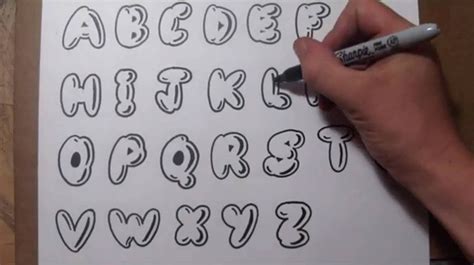
Bubble Font Drawing: Create Fun & Easy Designs
Readers, have you ever wanted to add a touch of whimsy and playfulness to your designs? Bubble font, with its rounded, bouncy letters, is a great way to achieve that. But where do you start? What are the best techniques for drawing bubble font?
Don't worry, you don't need to be a professional artist to create stunning bubble fonts. With a little practice, you can easily master this fun and versatile style. I've been experimenting with bubble font for years, and I've gathered some amazing tips and tricks to help you create your own eye-catching designs.
What is Bubble Font?
Bubble font, also known as "balloon font," is a playful, rounded font style that resembles speech bubbles or balloons. This whimsical style is perfect for adding a touch of fun and personality to your designs. It's often used for creating eye-catching titles, headings, and even entire pieces of text.
Why Use Bubble Font?
Bubble font adds a unique and engaging element to your designs. It's instantly recognizable, making your work stand out. It's also a great way to express personality and create a fun and friendly atmosphere.
Versatility of Bubble Font
Bubble font can be used for a variety of purposes, from creating fun and playful designs to adding a touch of whimsy to more serious projects.
Here are a few examples of how you can use bubble font:
- Greeting cards and invitations: Add a touch of personality to your greeting cards and invitations with bubble font.
- Posters and flyers: Create eye-catching posters and flyers that will grab attention.
- Social media graphics: Use bubble font to create fun and engaging social media graphics.
- Website designs: Add a touch of whimsy to your website designs with bubble font.
- Logos and branding: Create unique and memorable logos and branding elements with bubble font.
The Popularity of Bubble Font
Bubble font has gained immense popularity in recent years, thanks to its versatility and ability to add a touch of fun to any design. It's often used in social media graphics, websites, and even in children's books and illustrations.
Its popularity stems from its ability to convey a sense of playfulness and joy. It's a great way to add a personal touch to your designs and make them more engaging for your audience.
How to Draw Bubble Font
Learning how to draw bubble font is easier than you might think. It's all about using basic shapes and adding your own unique flair. Here's a step-by-step guide to get you started:
Step 1: Choose Your Tools
You'll need a few basic tools to get started. Here are a few suggestions:
- Paper: Use any type of paper that you find comfortable to draw on. Thick paper or sketchbooks are ideal.
- Pencil: A good quality pencil is essential for sketching and outlining your letters. Choose a pencil with a medium lead (HB or 2B).
- Eraser: You'll need an eraser to correct any mistakes and clean up your lines.
- Pen: Once you're happy with your sketches, you can use a pen to trace your letters. Choose a pen with a smooth, consistent ink flow.
- Markers or color pencils: You can add color to your bubble font using markers or color pencils.
- Ruler: A ruler can help you create perfectly straight lines and even spacing between letters.
Step 2: Start Sketching
Start by sketching the basic shapes of your letters. Think of each letter as a balloon or a speech bubble.
Here are some tips for sketching bubble font letters:
- Use rounded shapes: Avoid sharp corners or straight lines. Roundness is key to bubble font.
- Exaggerate the curves: Don't be afraid to make the curves of your letters very pronounced.
- Play with size and shape: Make some letters bigger or smaller than others to add visual interest.
- Add details: You can add details like tails, swirls, and dots to make your letters even more unique.
Step 3: Trace and Refine
Once you're happy with your sketches, you can trace them with a pen to create clean lines. Use a light touch to avoid smudging.
You can also use this step to refine the shapes of your letters. Make any necessary adjustments to create a more cohesive and visually appealing design.
Step 4: Add Color
If you're adding color to your bubble font, now is the time to do it. Markers and colored pencils are both good options.
Try using a variety of colors and shades to create a fun and vibrant look. You can even use different colors for each letter or word to make your design even more eye-catching.
Step 5: Practice, Practice!
Like any skill, drawing bubble font requires practice. The more you practice, the better you'll get at creating unique and creative designs.
Don't be afraid to experiment with different styles and techniques. There are no rules when it comes to bubble font, so have fun and let your creativity flow.